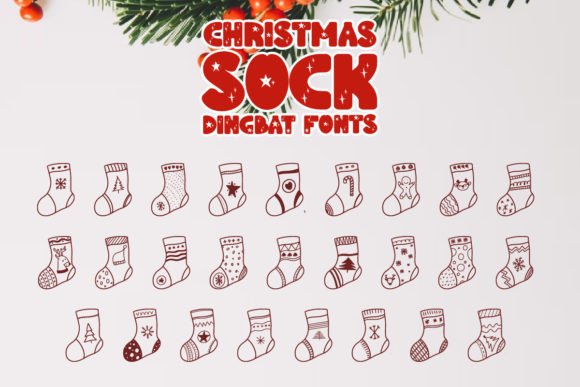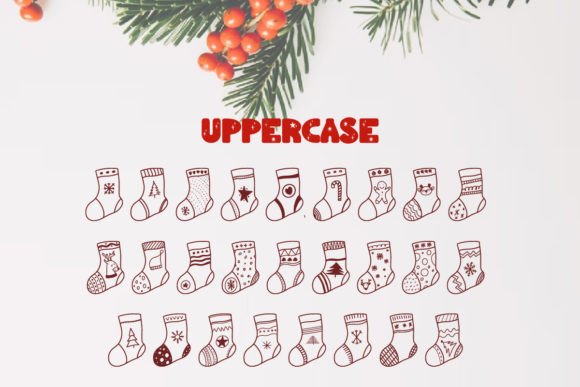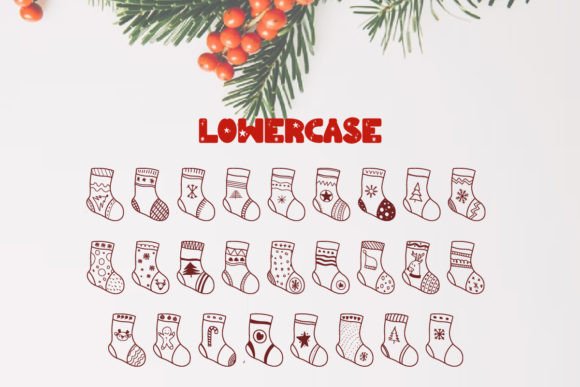
Christmas Sock Font
About Christmas Sock Font
Introducing Christmas Sock, the perfect dingbat font to infuse your Christmas-themed designs with festive charm and joy. This delightful font is filled with a variety of sock-inspired symbols and ornaments that will bring a touch of whimsy and cheer to your creative projects.
Christmas Sock is designed with the spirit of the holiday season in mind. Each symbol represents the joyful elements associated with Christmas, such as Santa Claus, reindeer, snowflakes, candy canes, presents, and more. Whether you’re working on greeting cards, gift tags, party invitations, or any other Christmas-related design, this font provides a wide range of decorative options.
With Christmas Sock, you can easily incorporate the playful sock-themed symbols into your designs. Use them individually as decorative elements or combine them to create charming patterns, borders, or ornaments. The versatility of this font allows you to add a touch of festive flair to various mediums, including digital and print projects.
Spread the holiday spirit with the whimsical charm of Christmas Sock. Let these sock-inspired symbols bring a sense of warmth and joy to your Christmas designs, capturing the essence of the season in every project. Download Christmas Sock now and embark on a creative journey filled with festive merriment and endless inspiration.